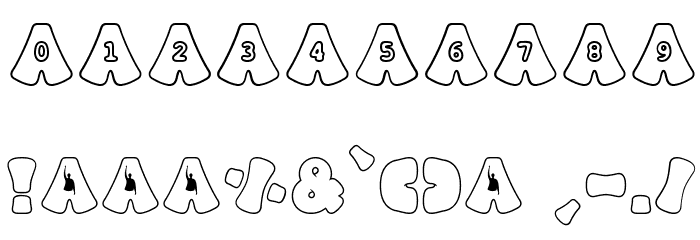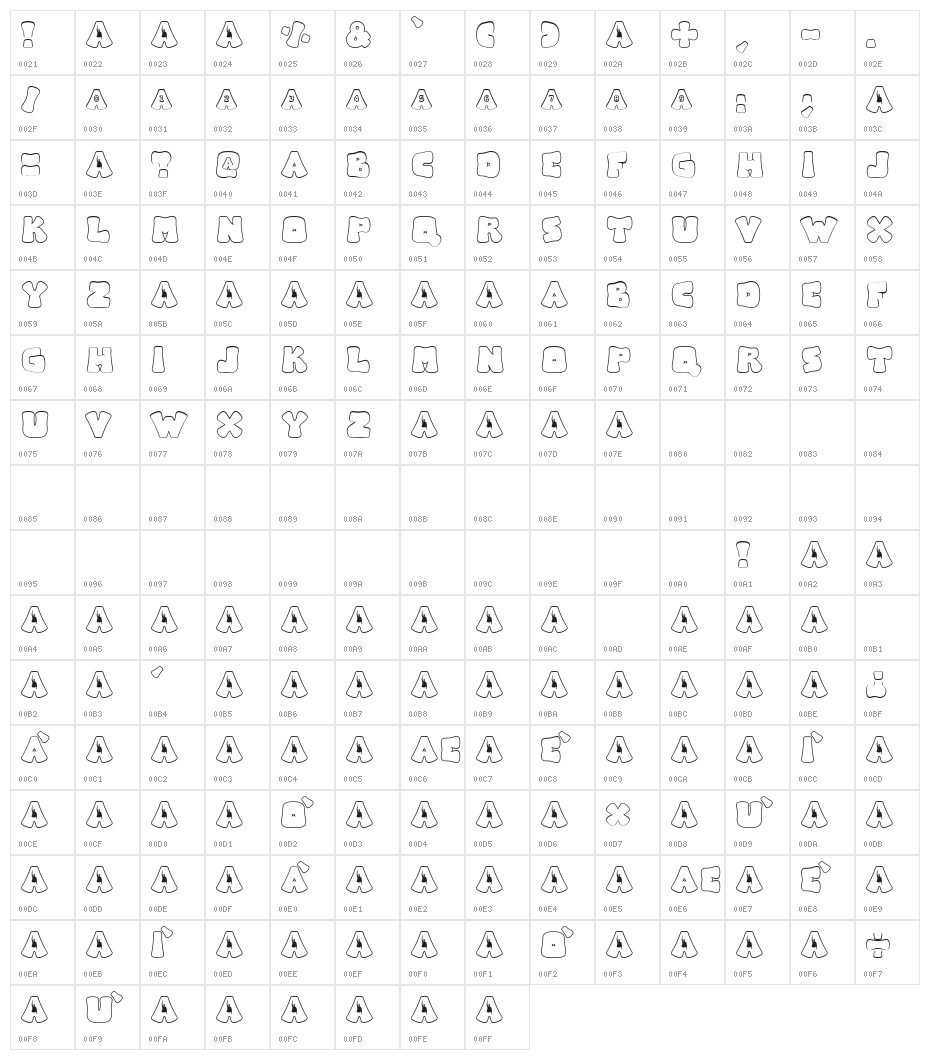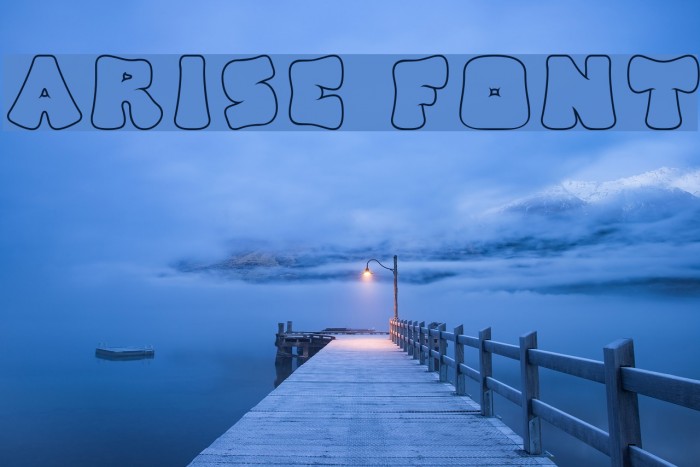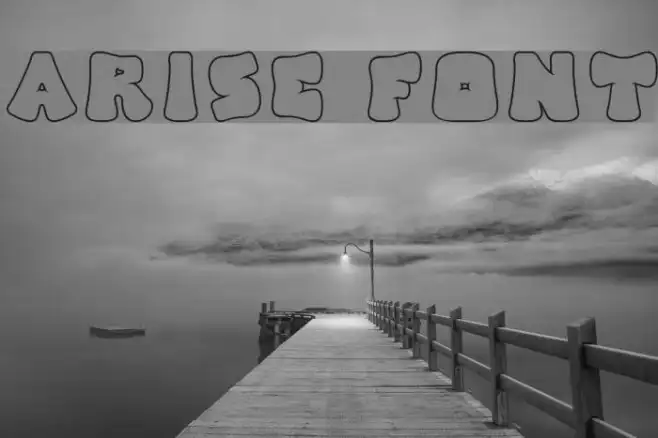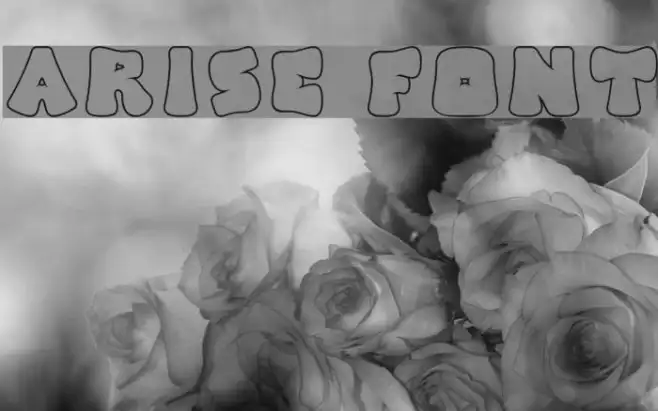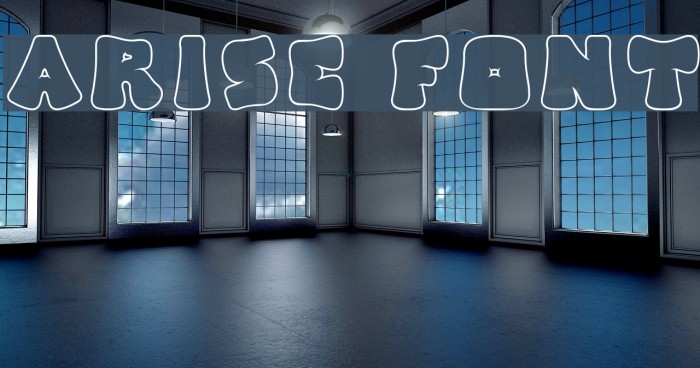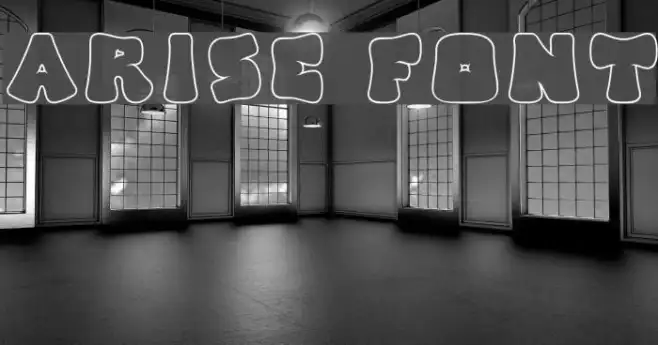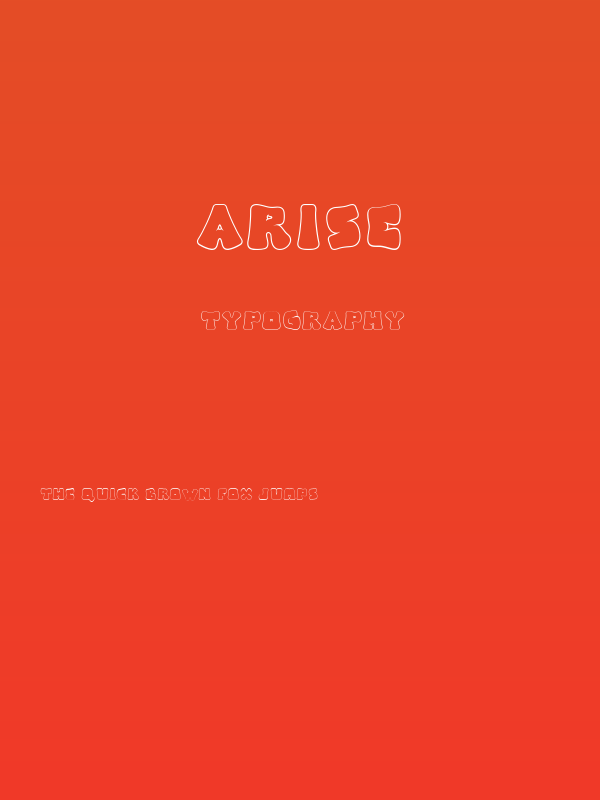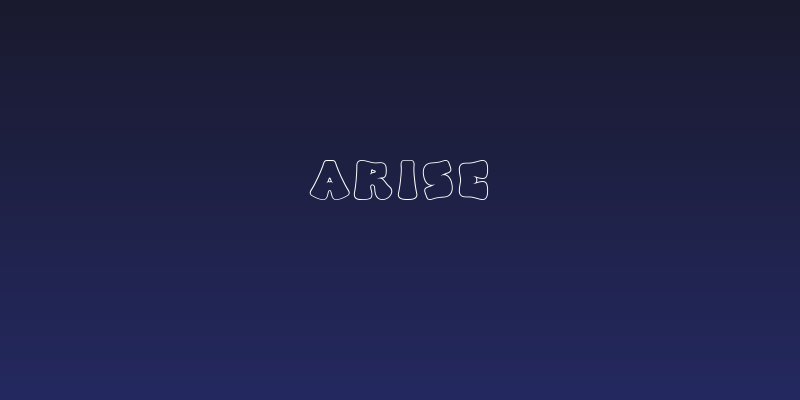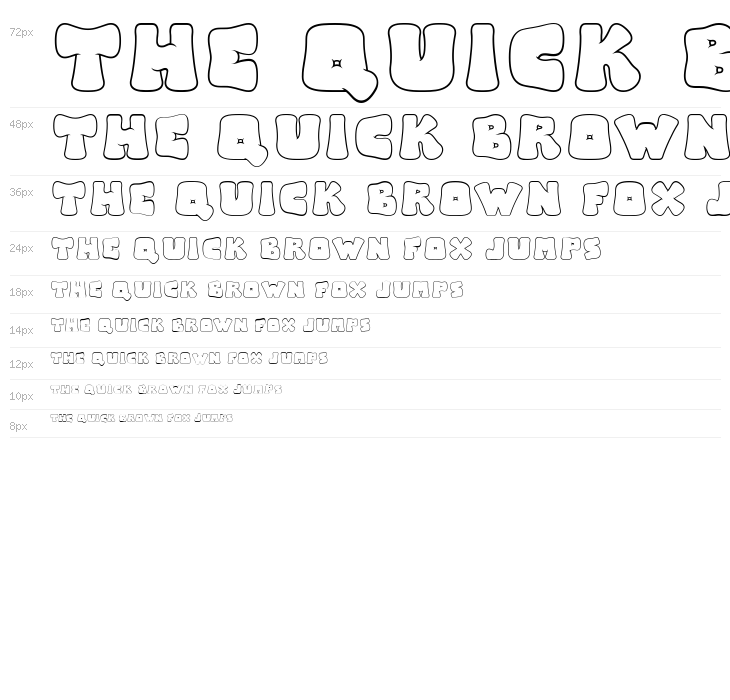
Arise Font
Arise Description
This font features a playful and bold design with a bubble-like appearance. Each character is outlined, giving it a cartoonish and fun vibe. The letters are uniformly wide, with rounded edges and a consistent stroke width, creating a harmonious and cohesive look. The font's unique style makes it stand out, with a whimsical touch that is both eye-catching and engaging. The numbers and special characters follow the same design principles, ensuring a consistent aesthetic throughout. This font is perfect for projects that require a lively and informal tone.
| Proposed Projects | Ideal for children's books, comic strips, playful branding, and party invitations. |